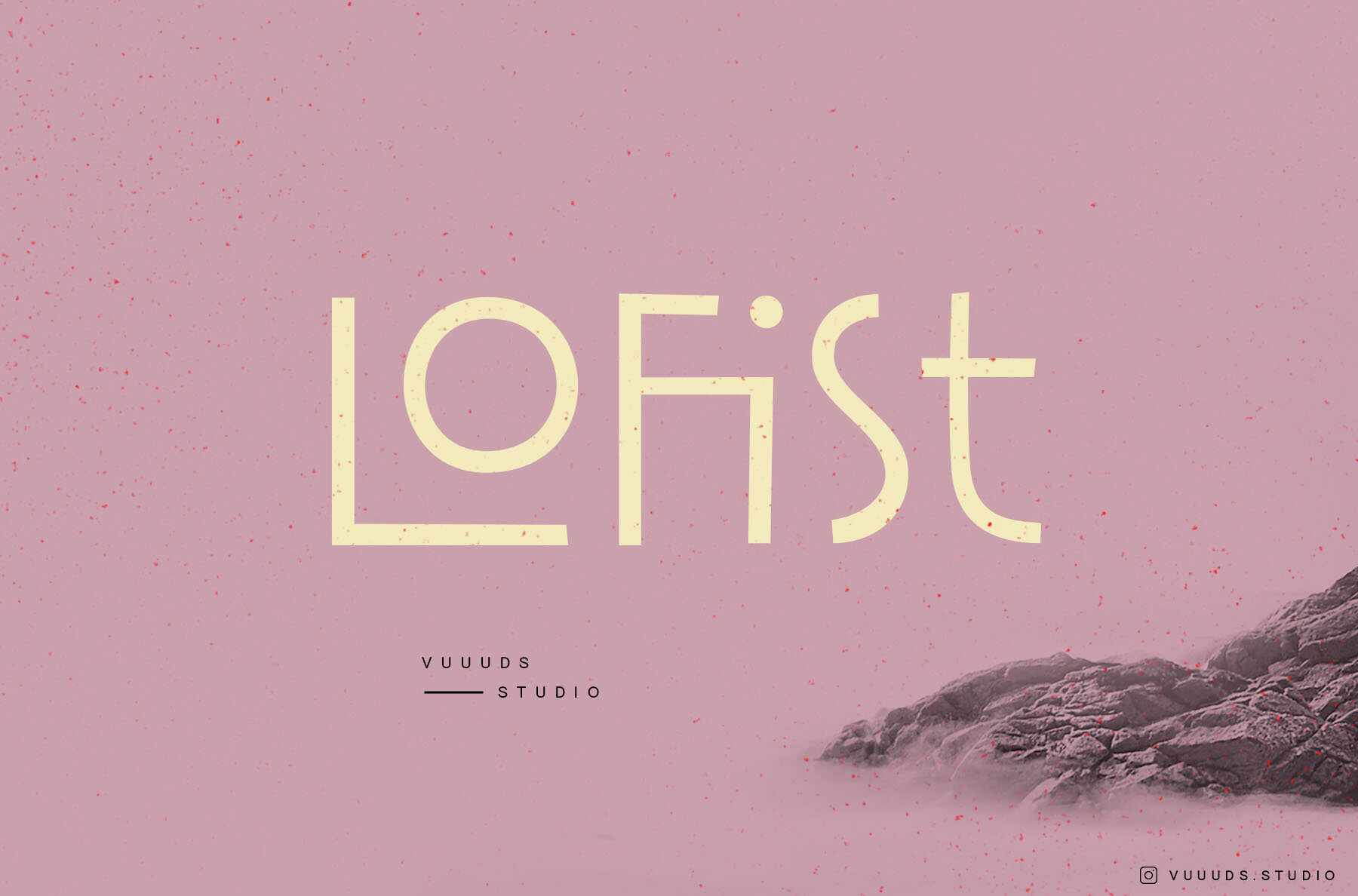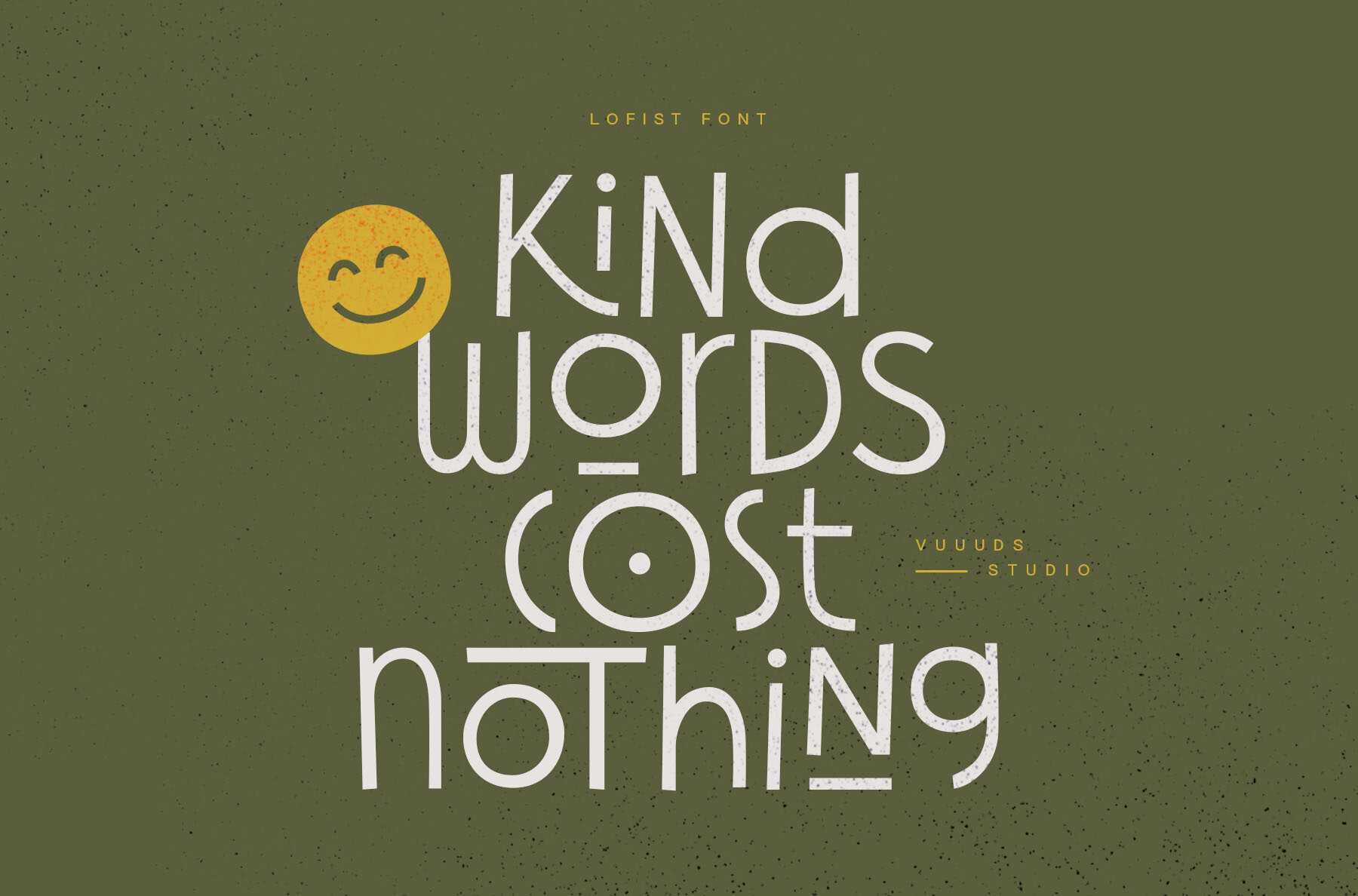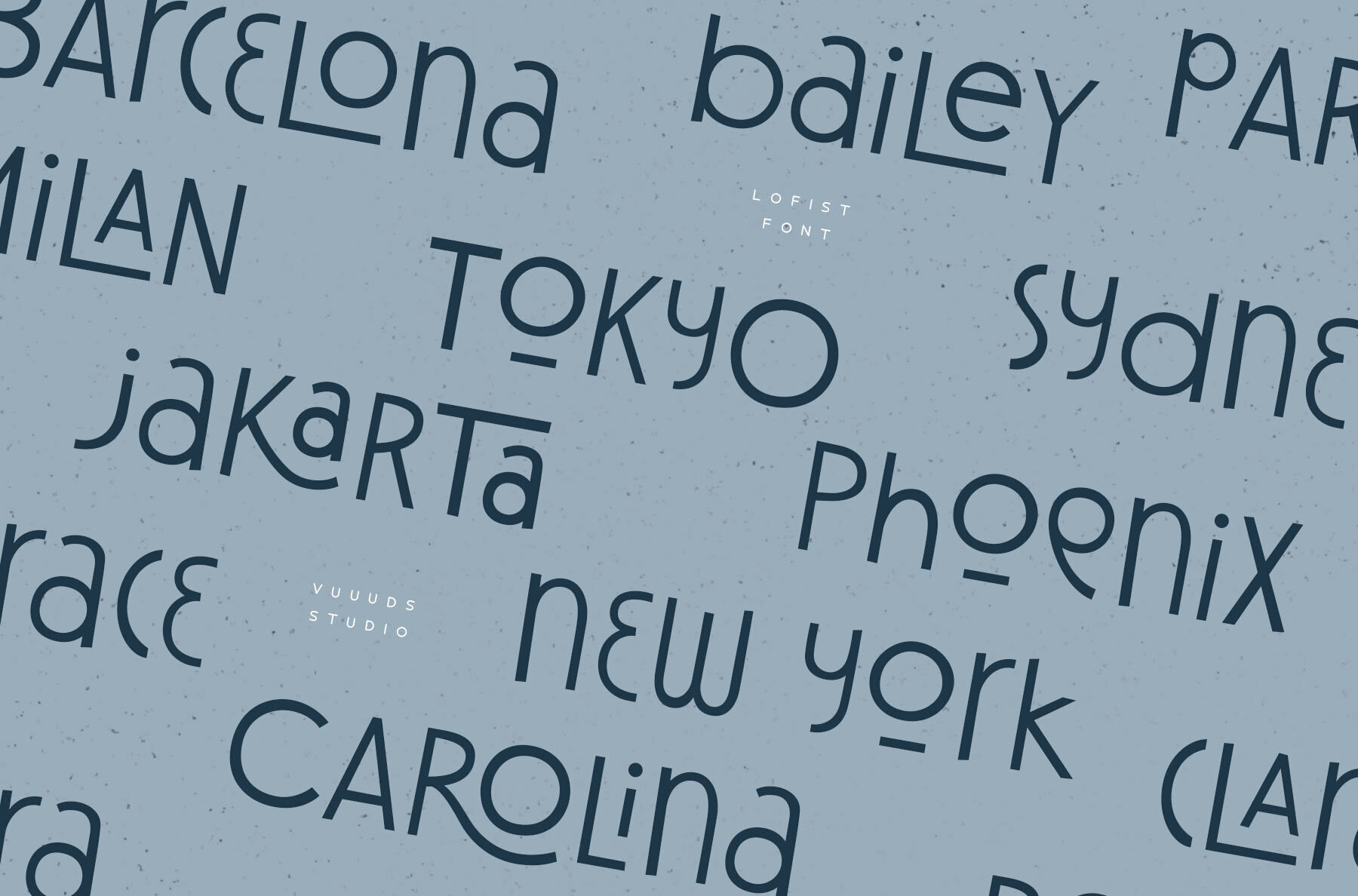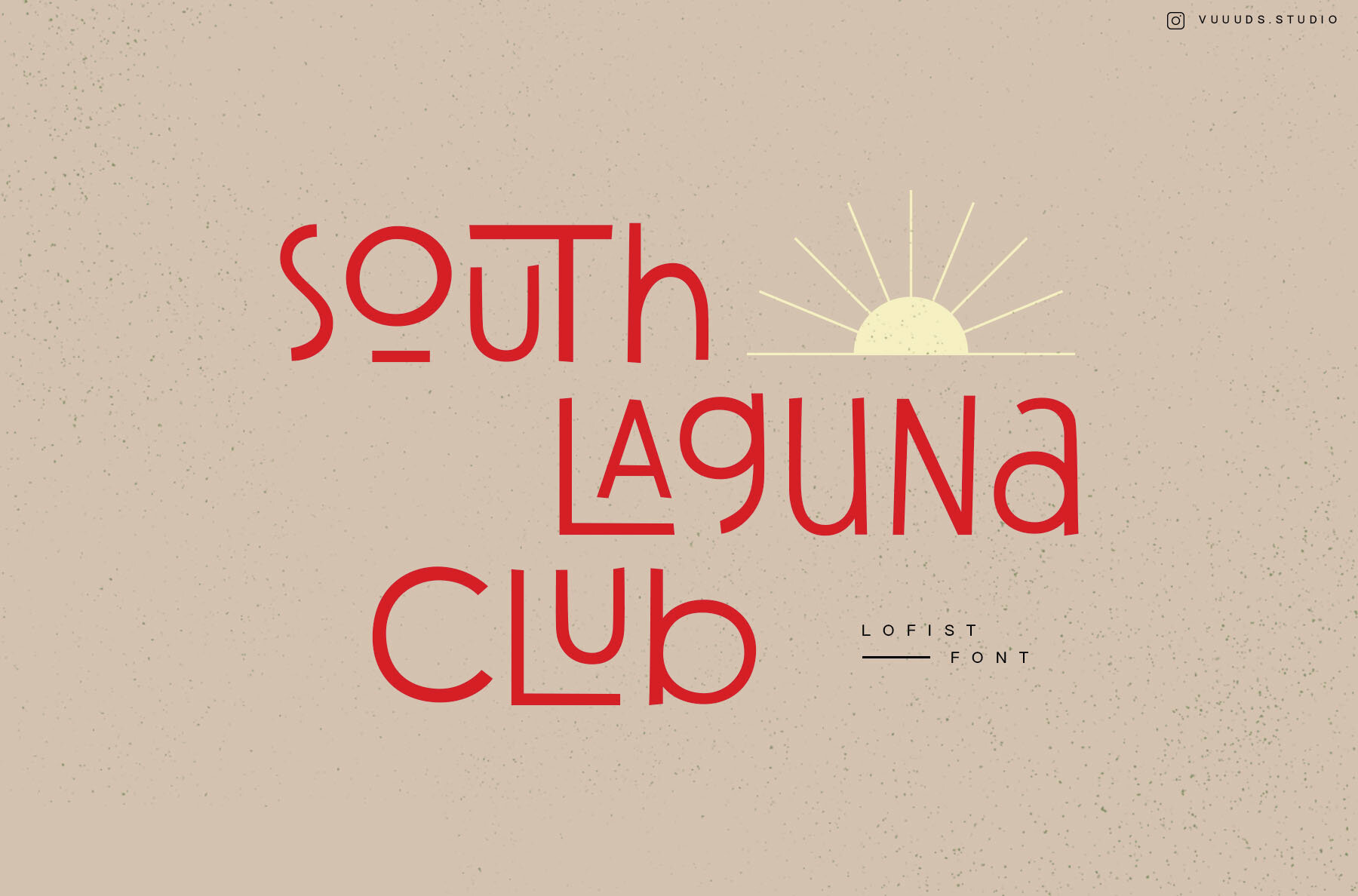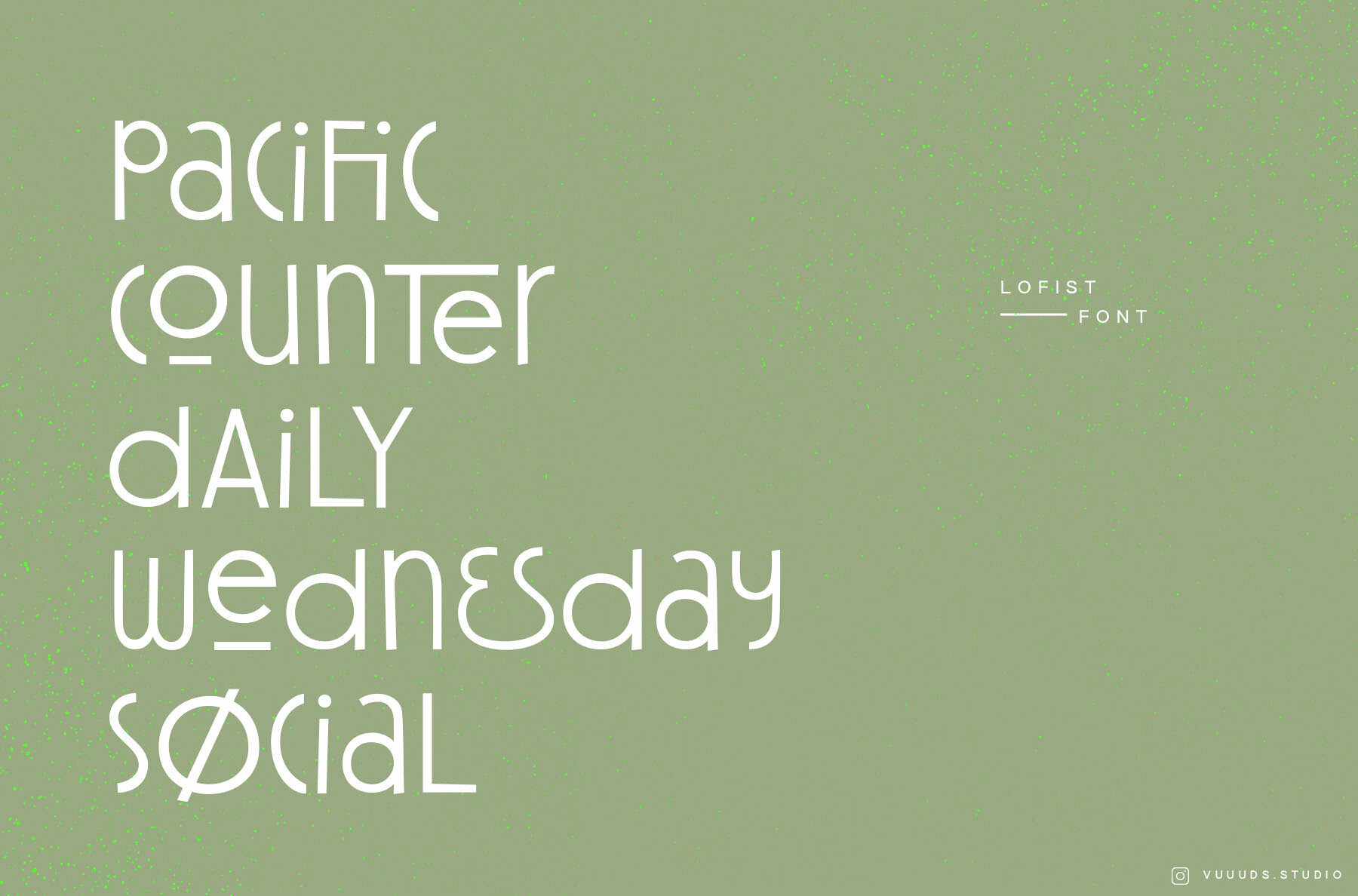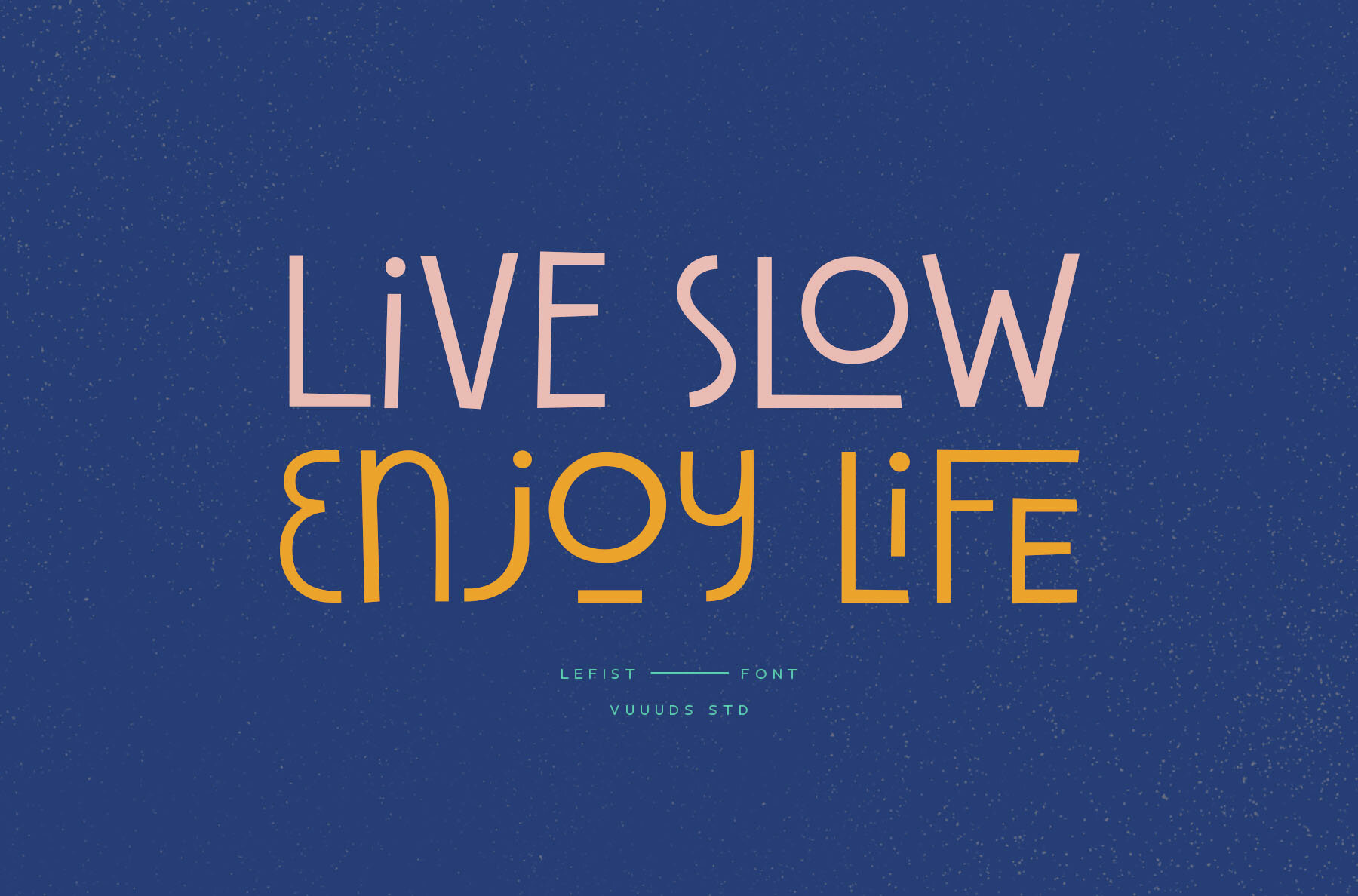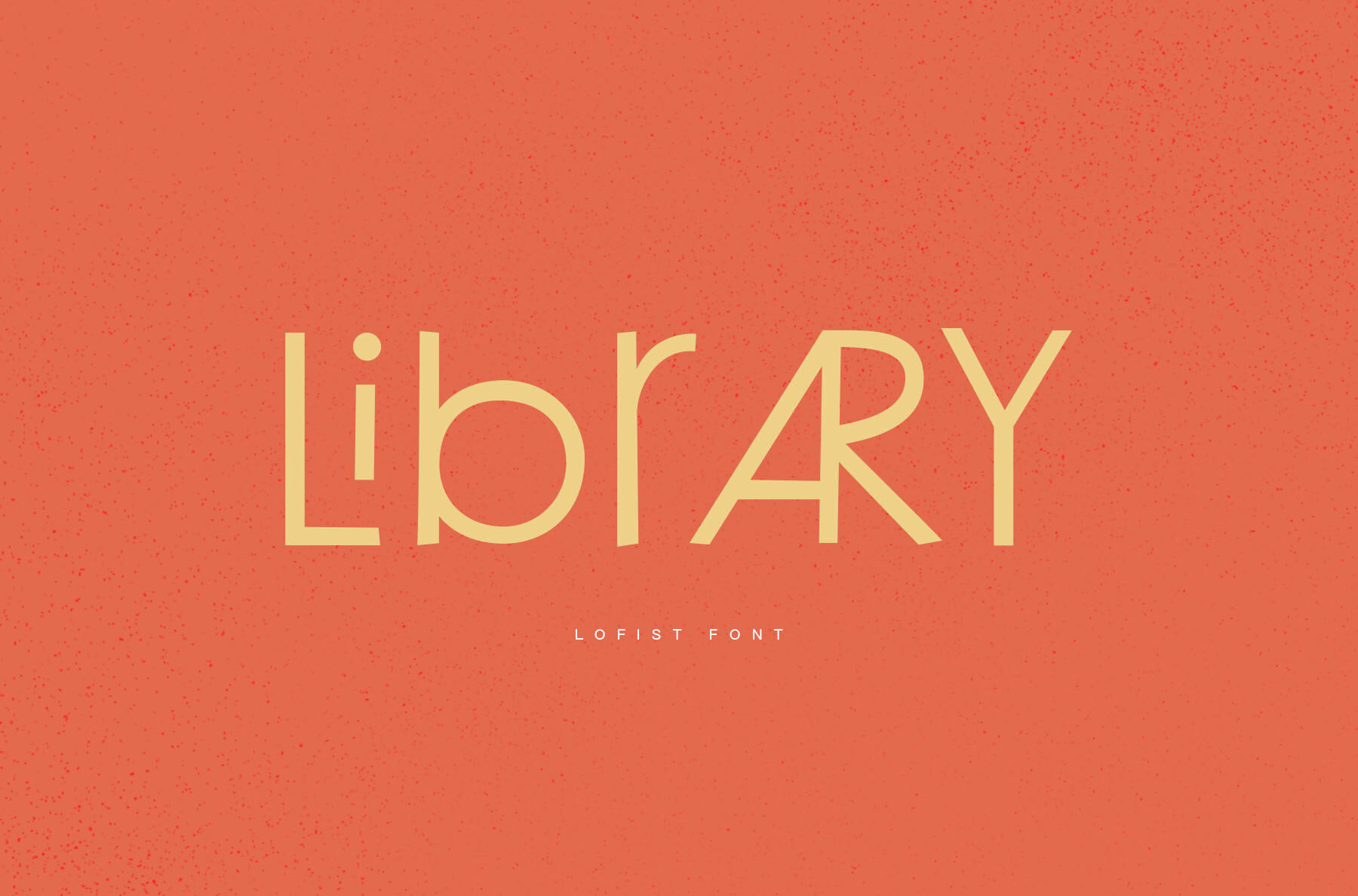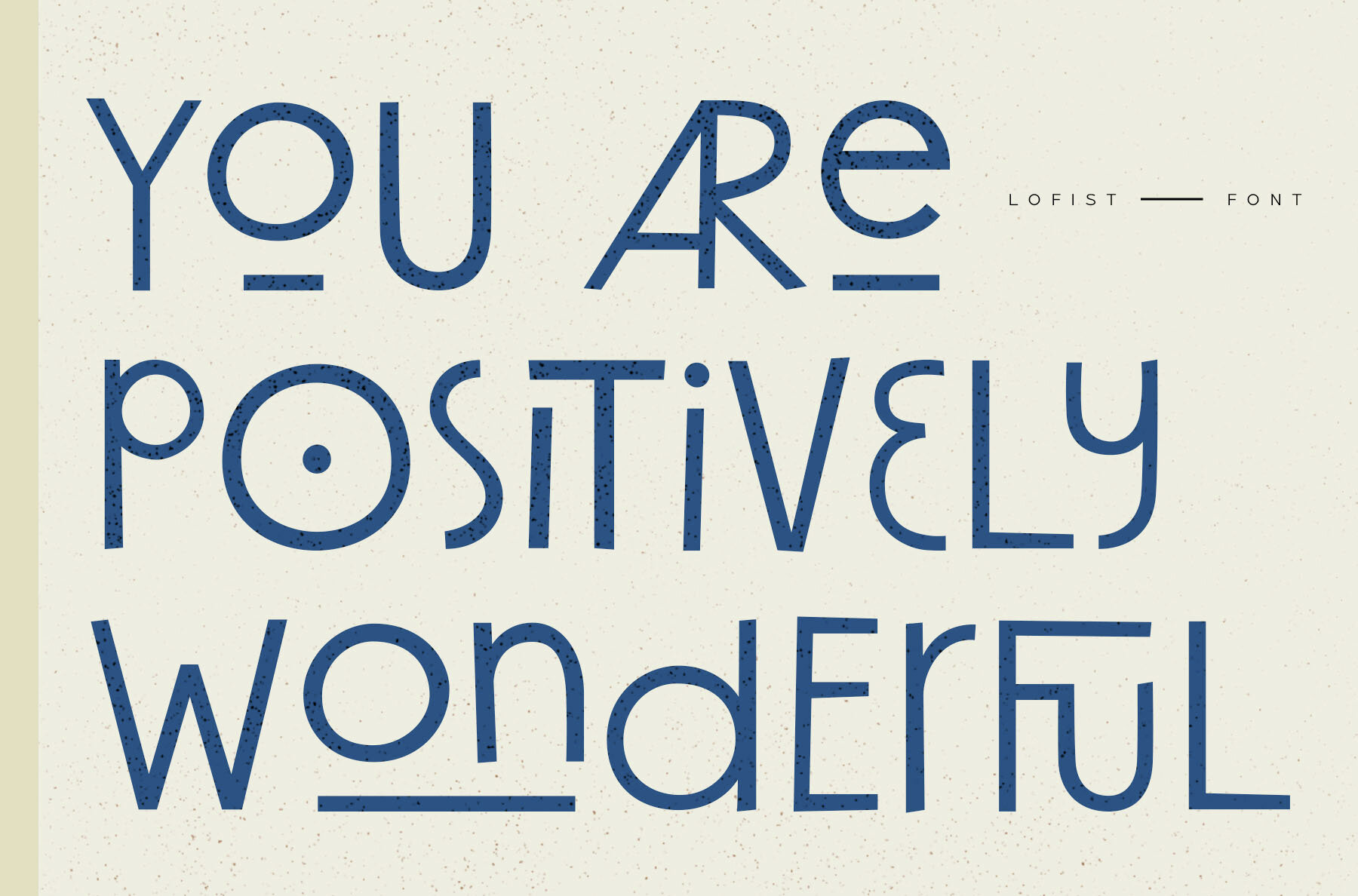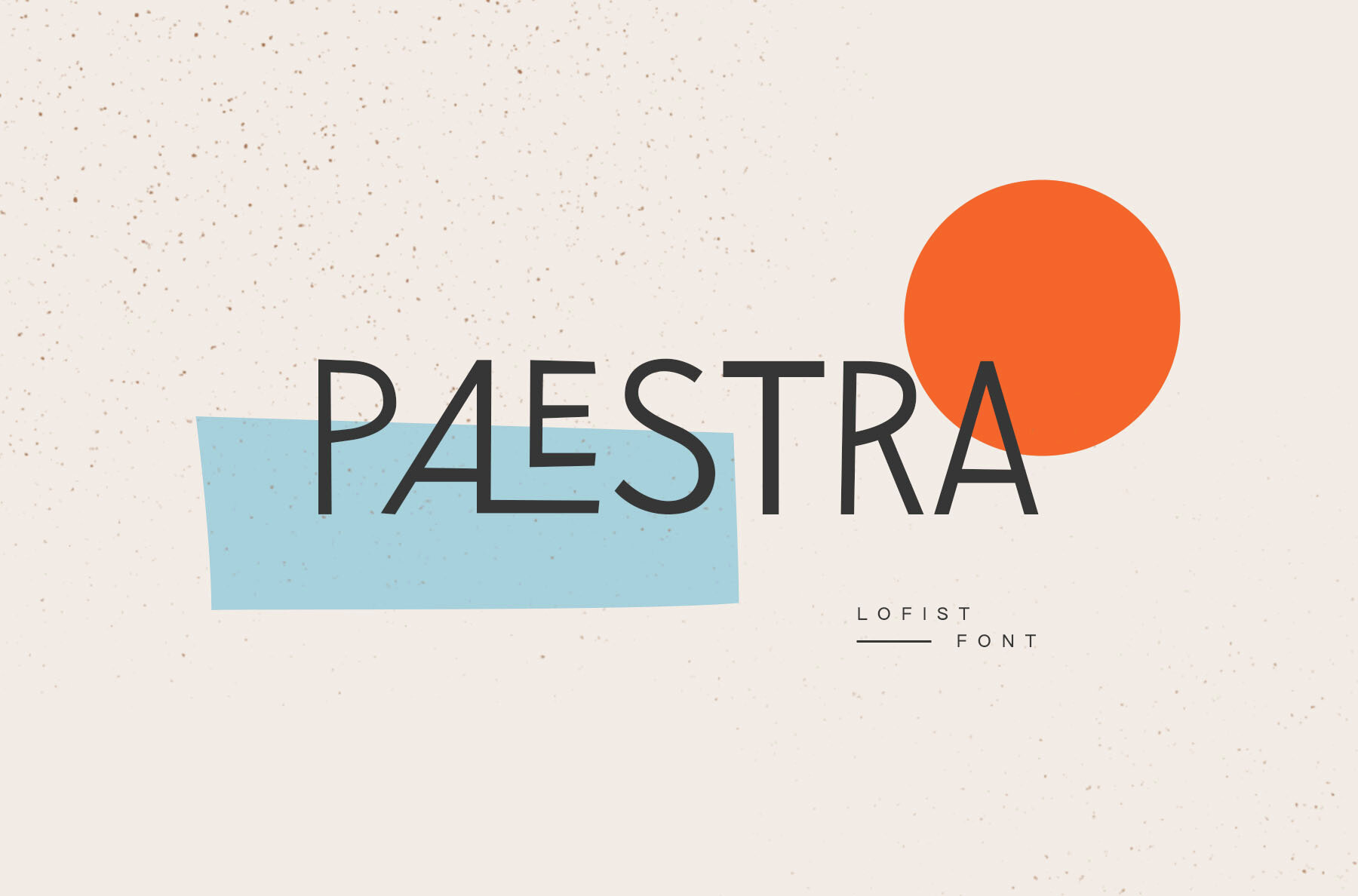
Lofist Font
Lofist Regular
Lofist is a modern casual display font where every letter has been uniquely crafted to stand out. Its contemporary design makes it suitable for various creative projects, whether you're designing a logo, creating graphics, or enhancing digital and print materials.Lofist: Modern Casual Display Font with Unique Craftsmanship
Features of Lofist